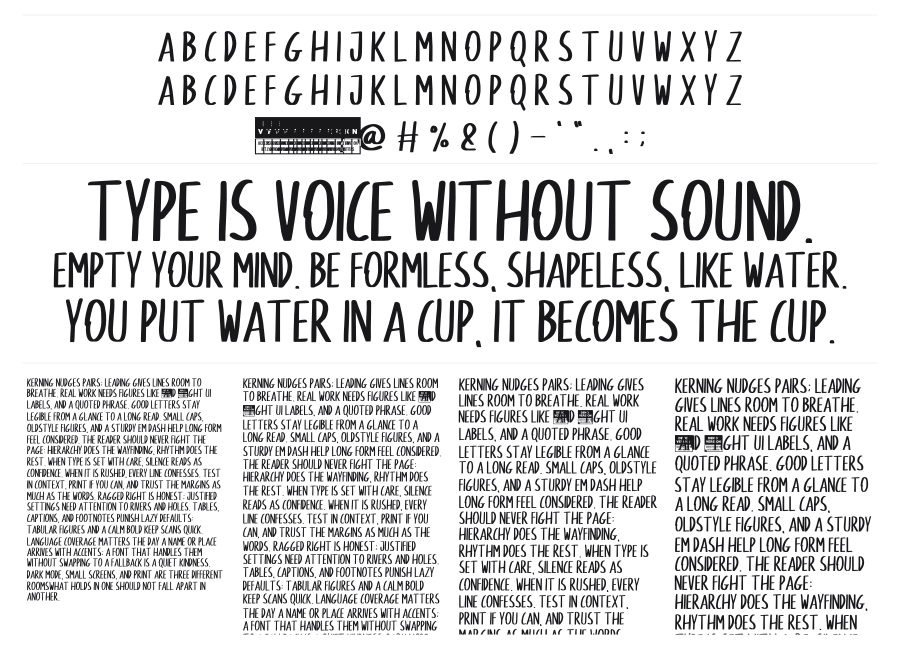
Olenber
by Indotitas Squad
Olenber is a condensed uppercase handwritten face from Indotitas Squad that captures the quick, confident energy of a broad-tip marker. The letterforms are playful but hold a tight vertical rhythm, giving it more structure than most casual scripts. Works naturally for headlines, packaging, and display settings where you want something that feels hand-lettered without losing legibility.